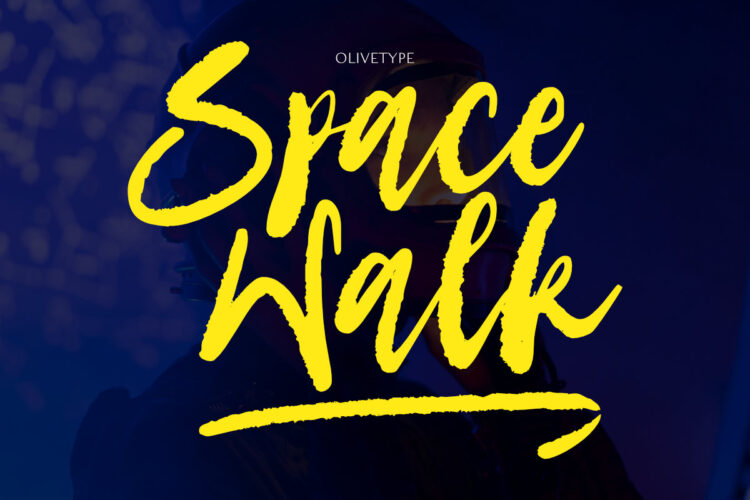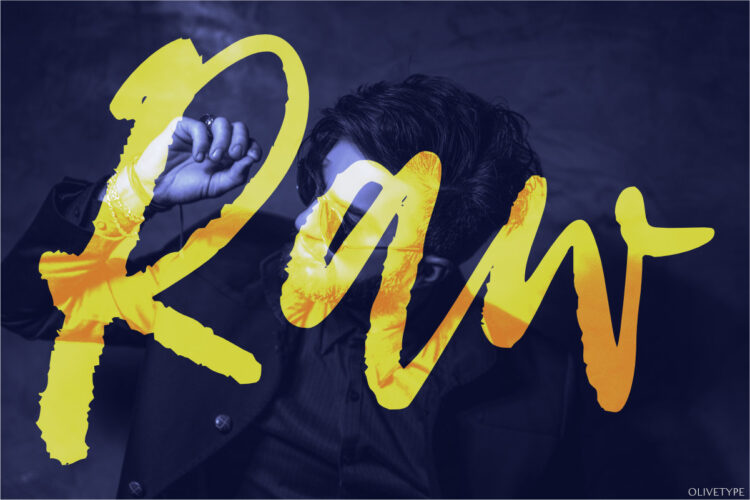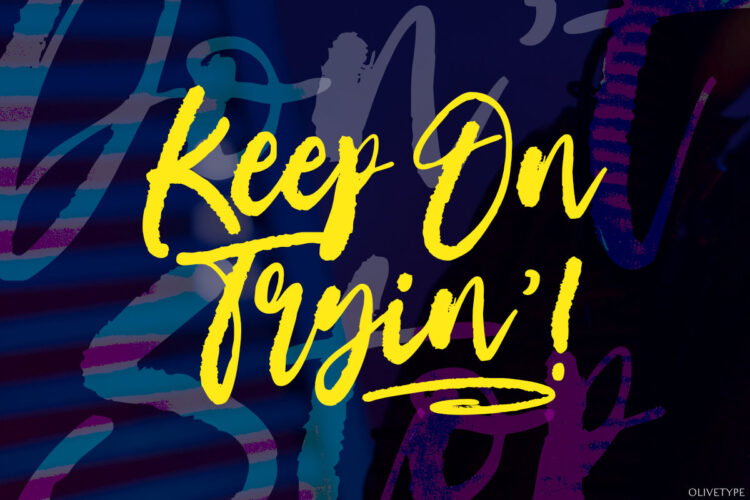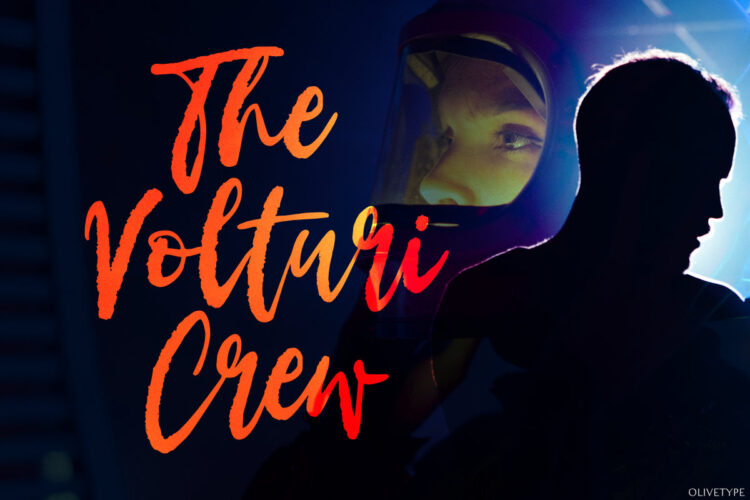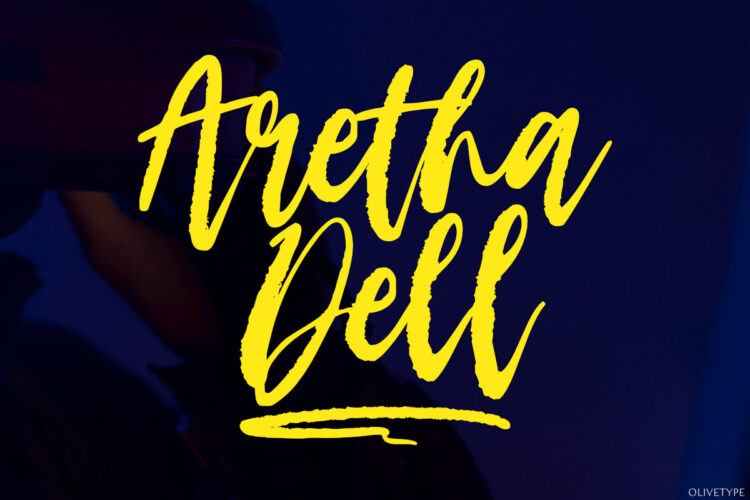
Space Walk is a dry brush handwritten script font. It is a nice choice for creating eye-catching logos, branding, and quotes. The font is supporting 66 languages, which include: Afrikaans Albanian Catalan Danish Dutch English Estonian Finnish French German Italian Norwegian Portuguese Spanish Swedish Zulu, and more.
- Basic Latin A-Z & a-z.
- Numbers, symbols, and punctuations.
- Ligatures.